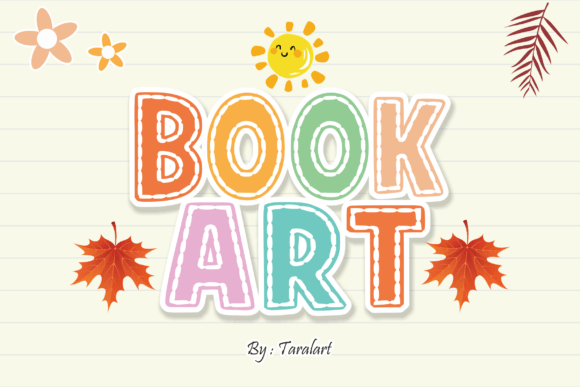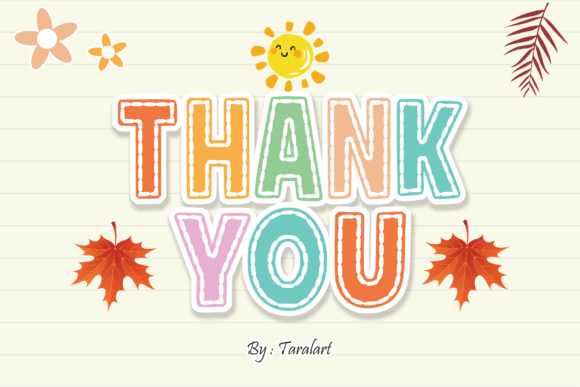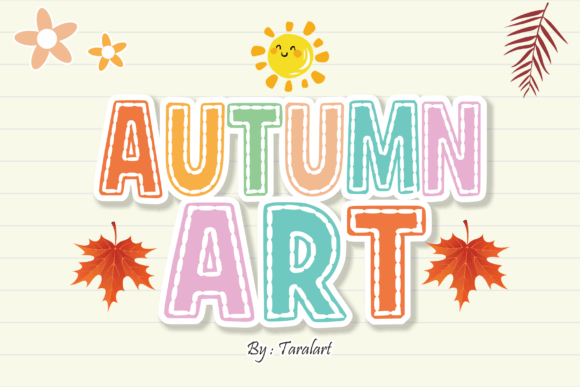
Introducing Autumnart Regular Font: The Perfect Addition to Your Design Toolkit
Are you a designer or crafter looking for a font that captures the essence of fall? Look no further than Autumnart Regular Font, an enchantingly vibrant and charming typeface that’s perfect for adding a touch of whimsy to your designs. In this article, we’ll dive into the features and benefits of Autumnart, and explore how it can elevate your creative projects.
What is Autumnart Regular Font?
Autumnart Regular Font is a fall-inspired cartoon typeface that’s dipped in saccharin tones of charm. Each uniquely crafted character bursts with delightful cheer, making it an optimal choice for designers and crafters who want to add a touch of personality to their work. The font’s versatility is one of its standout features, allowing effortless utilization in a wide range of projects.
Key Features of Autumnart Regular Font
- Vibrant and charming design: Autumnart’s fall-inspired design is sure to capture the essence of the season. Its saccharin tones of charm make it perfect for designs that require a touch of whimsy and personality.
- Uniquely crafted characters: Each character in Autumnart is uniquely crafted to burst with delightful cheer. This makes it an excellent choice for designers and crafters who want to add a personal touch to their work.
- Versatile and easy to use: Autumnart’s versatility makes it an optimal choice for a wide range of projects, from fashioning eye-catching subtlety in t-shirts, mugs, and tote bags with sublimation designs, to adding a touch of whimsy to animations and comic titles.
Autumnart Regular Font is perfect for designers and crafters who want to add a touch of fall-inspired charm to their work. Whether you’re creating sublimation designs for t-shirts, mugs, and tote bags, or animating comic titles, Autumnart is the perfect addition to your design toolkit. Its ease of use and versatility make it an excellent choice for:
- Sublimation designs: Autumnart’s vibrant and charming design makes it perfect for sublimation designs on t-shirts, mugs, and tote bags.
- Animations and comic titles: Add a touch of whimsy to your animations and comic titles with Autumnart’s unique and charming characters.
- Fall-inspired projects: Autumnart is the perfect choice for designers and crafters who want to capture the essence of fall in their projects.
Let “Autumn Art” be the Canvas for Your Creative Thoughts
Autumnart Regular Font is more than just a typeface – it’s a canvas for your creative thoughts. With its enchanting and vibrant design, Autumnart allows your imagination to run wild and freely. Whether you’re a designer or crafter, Autumnart is the perfect tool to help you bring your ideas to life.
| Font Name | Autumnart Regular Font |
| Author | TaralArt |
In conclusion, Autumnart Regular Font is a must-have for designers and crafters who want to add a touch of fall-inspired charm to their work. Its vibrant and charming design, uniquely crafted characters, and versatility make it an optimal choice for a wide range of projects. Whether you’re creating sublimation designs, animations, or comic titles, Autumnart is the perfect addition to your design toolkit. So why wait? Let “Autumn Art” be the canvas where your creative thoughts freely wander, and experience the magic of Autumnart Regular Font for yourself.
Get Ready to Elevate Your Designs with Autumnart Regular Font